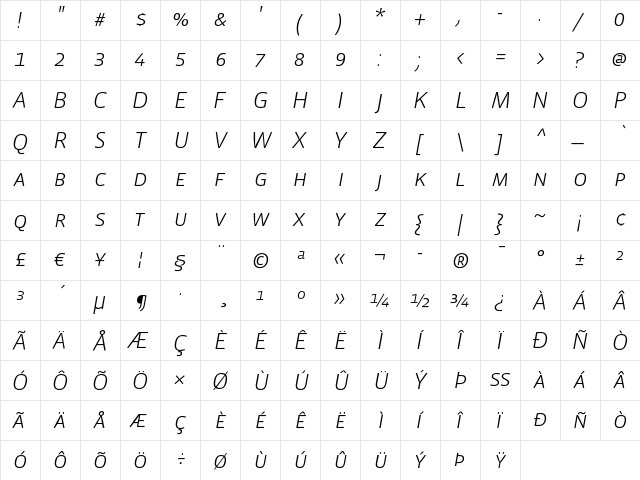
VistaSansSCLightIta Regular
| Foundry | Xavier Dupre |
| Designer | Xavier Dupre |
Design Context for VistaSansSCLightIta Typeface
VistaSansSCLightIta offers clean, dependable letterforms without strong stylistic allegiance, making it a practical choice for designers who need flexibility. The delicate stroke weight brings airiness and refinement to layouts.